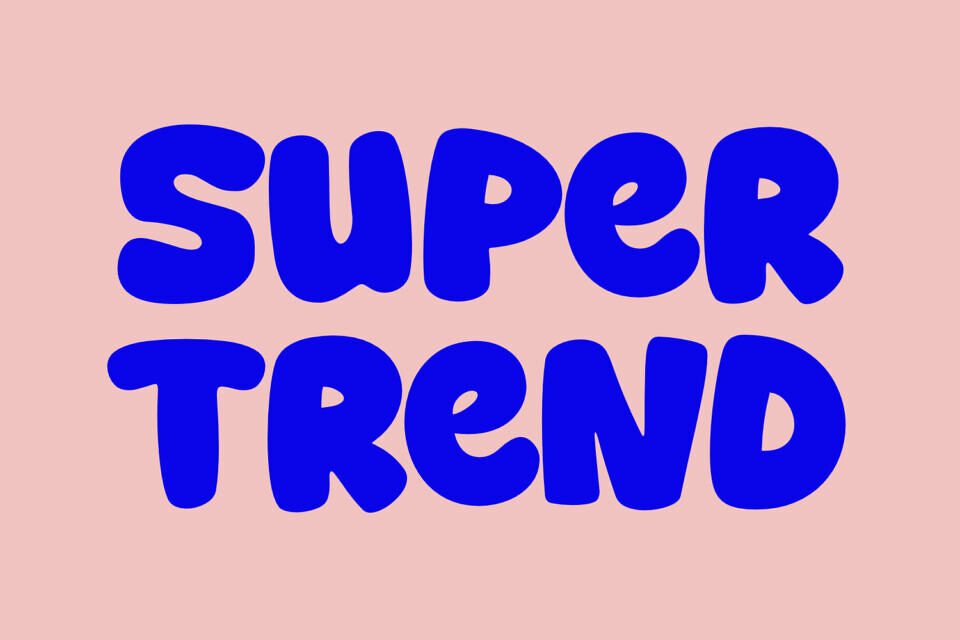
Super Trend Font is a playful display typeface characterized by its bold, bubbly forms and ultra-rounded edges, evoking a fun, retro vibe reminiscent of 70s pop art.
Letters feature smooth curves with consistent stroke widths, inflated proportions, and a glossy sheen effect. It includes uppercase, lowercase, numbers, and punctuation, all in a cohesive, whimsical style ideal for headlines, logos, or trendy branding.